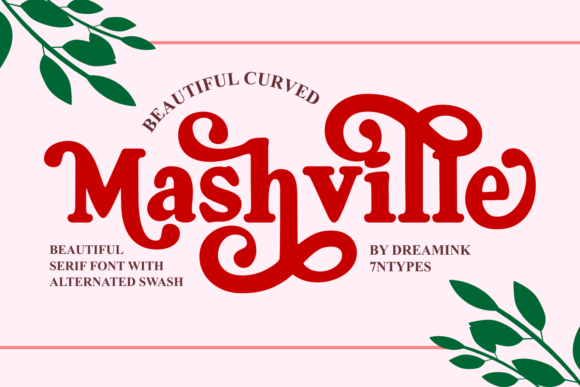
Dive into the realm of Mashville, a casual serif font that will awaken your creativity and elevate your projects to unprecedented heights. Designed by Dreamink (7ntypes), this font is a symphony of simplicity and elegance, effortlessly blending traditional serif charm with a modern twist.
With its easy-to-use nature, Mashville is the perfect companion for a plethora of design endeavors. Whether you're crafting logos, invitations, social media posts, or any other project that demands a touch of sophistication, this font is your ultimate choice. Its clean lines and harmonious curves will infuse your designs with a timeless allure that resonates with your audience.
But Mashville is more than just a font; it's an experience. It's a journey through the world's most captivating travel destinations, captured in the delicate strokes of each character. Its name, Mashville, evokes images of vibrant cities, serene countrysides, and hidden gems waiting to be discovered.
With Mashville, you have the power to transport your readers to far-off lands, ignite their wanderlust, and make their hearts beat faster. Turn your words into captivating narratives, your designs into visual masterpieces, and your projects into unforgettable experiences.
To enhance your creative freedom, Mashville is PUA encoded, allowing you to effortlessly access a treasure trove of glyphs and swashes. Unleash your imagination and explore endless possibilities, knowing that Mashville will keep up with your every stroke.
So, embark on this extraordinary journey with Mashville, a font that will unlock the storyteller within you. Let its characters dance across your screen, guiding you towards creative horizons you never dared to dream of.